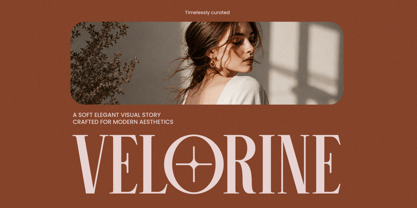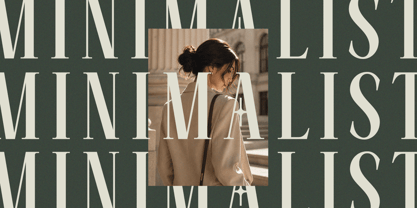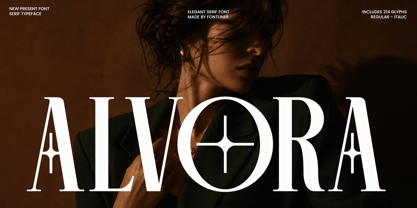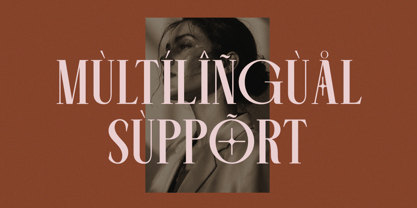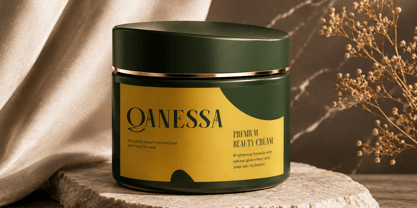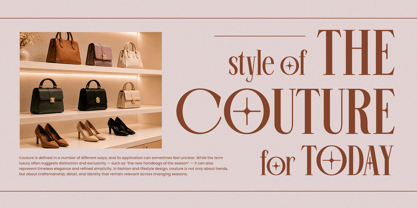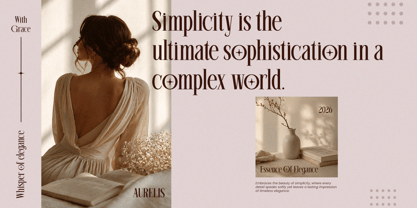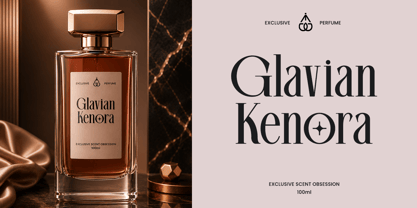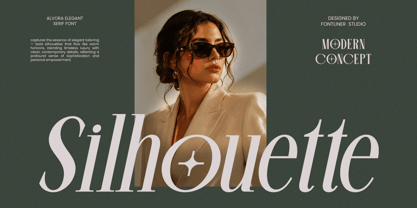
Alvora
by Font Liner
The Alvora Font Family was designed by Ghina Luthfiarieska and published by Font Liner. Alvora contains 2 styles and family package options. More about this family
Alvora is a refined luxury serif font crafted for premium branding and sophisticated visual storytelling. Designed with elegant high-contrast letterforms, graceful curves, and stylish proportions, this typeface delivers a timeless editorial feel with a modern fashion-forward attitude. The included regular and italic styles, along with 214 glyphs, make it versatile for professional design projects.
Perfect for luxury branding, fashion logos, editorial headlines, beauty packaging, jewelry campaigns, boutique identities, premium invitations, magazine layouts, and elegant social media content. Alvora brings a polished, upscale presence that makes every design feel exclusive and memorable.
Whether you're creating a high-end fashion identity, cosmetic branding, wedding stationery, hotel branding, or premium product packaging, Alvora offers the perfect balance between classic sophistication and contemporary elegance.
Designers: Ghina Luthfiarieska
Foundry: Font Liner